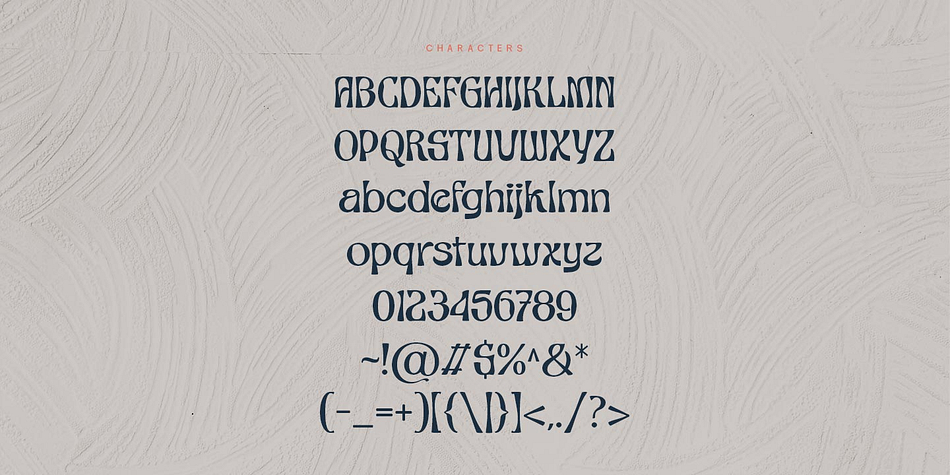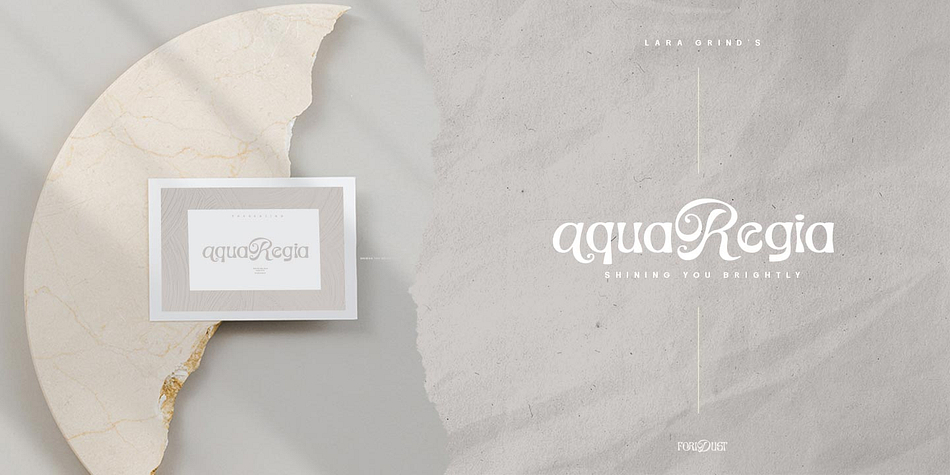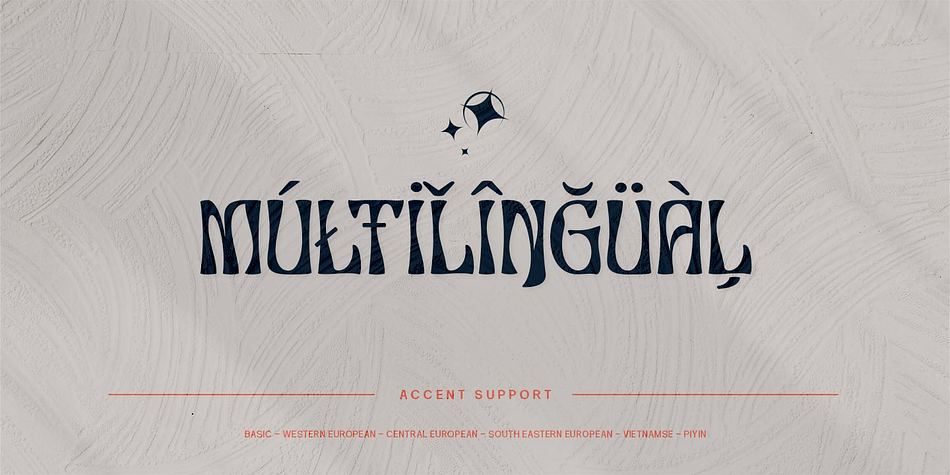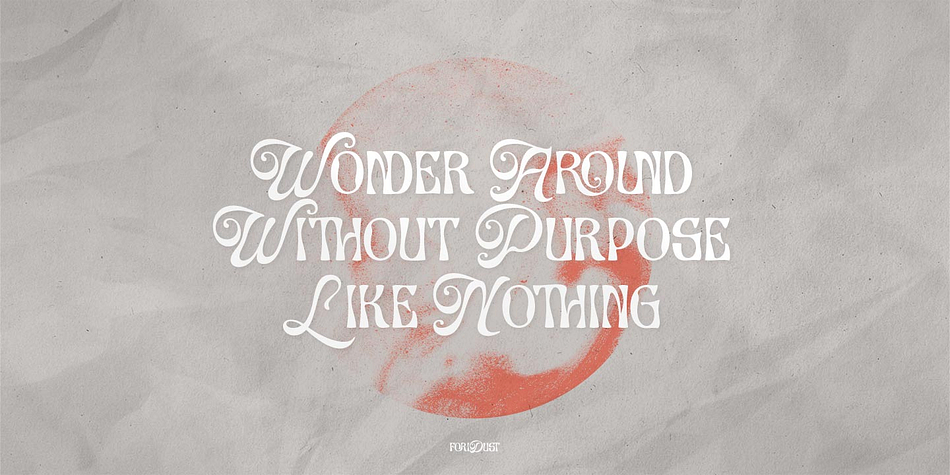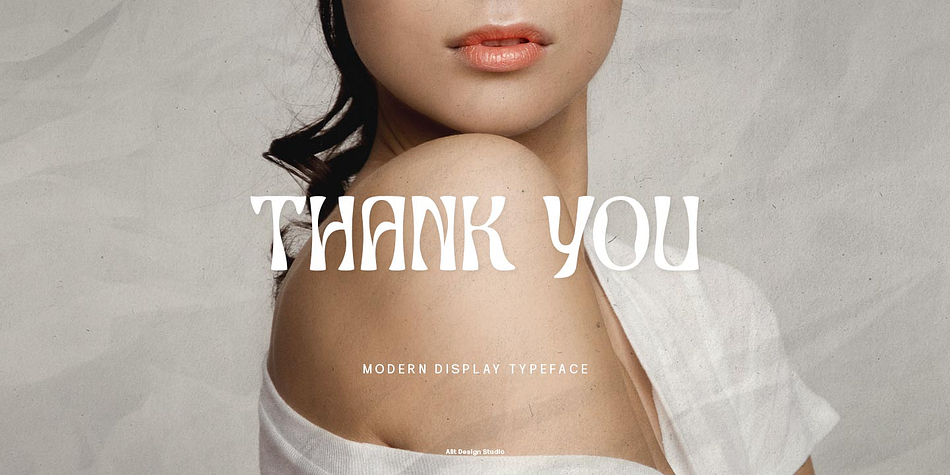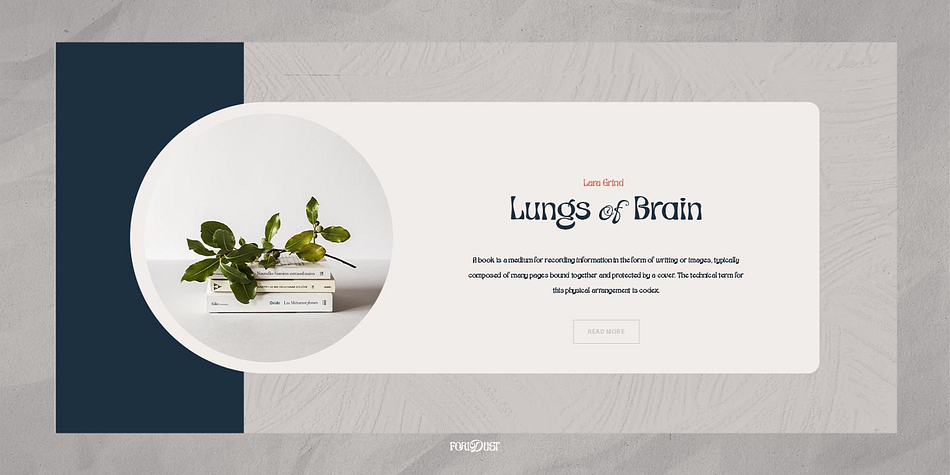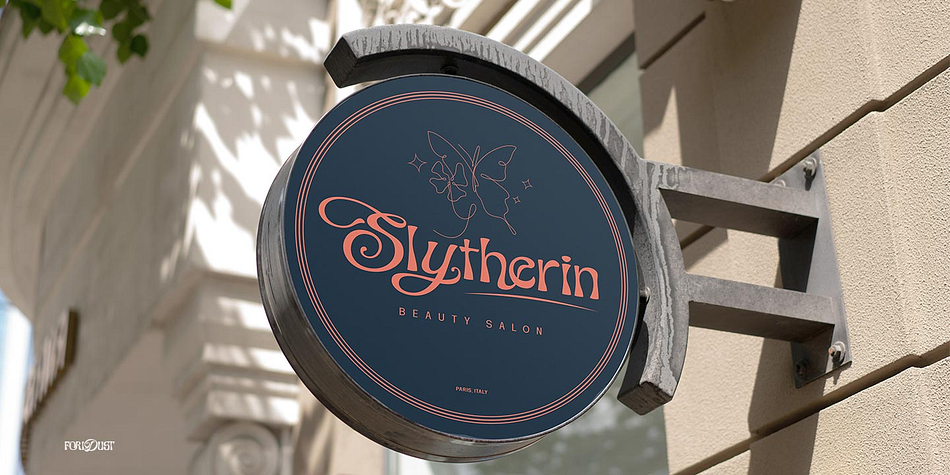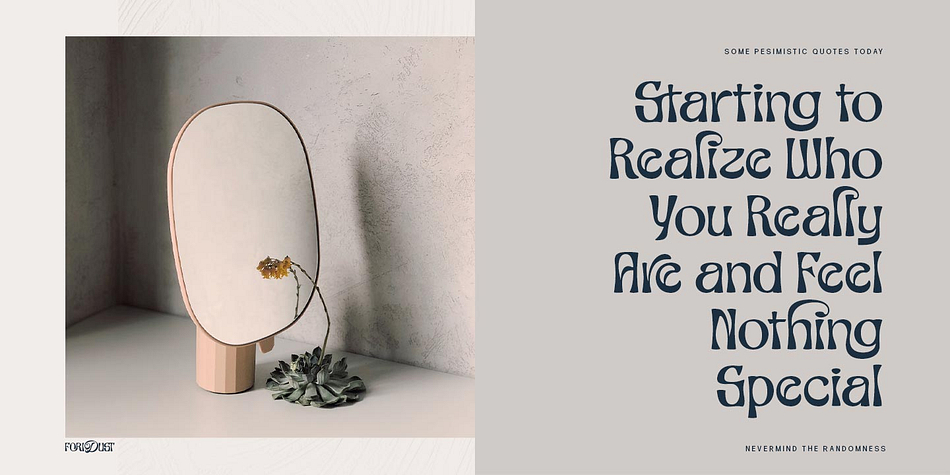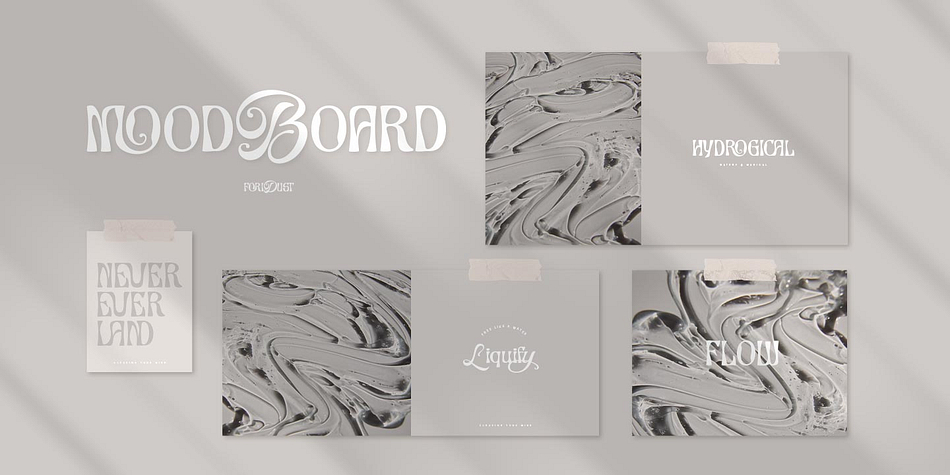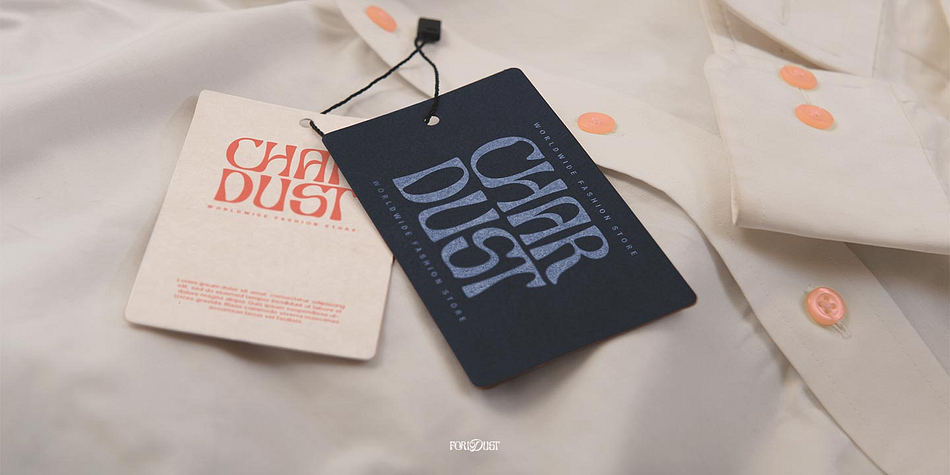
Designed by Alit Suarnegara, Foridust is a display sans and retro font family published by Alit Design.
Presenting the FRODUST typeface from alitdesign. The FRODUST font is designed with the concept of a slightly distorted display font in its body shape. This font has a modern serif style combined with elegant script-style letters that make the FRODUST font look different and unique from the fonts you have on your computer collection.
The “FORIDUST"contains 620 glyphs with many unique and interesting alternative options.
Styles | Display Sans, Retro |
Designer | Alit Suarnegara |